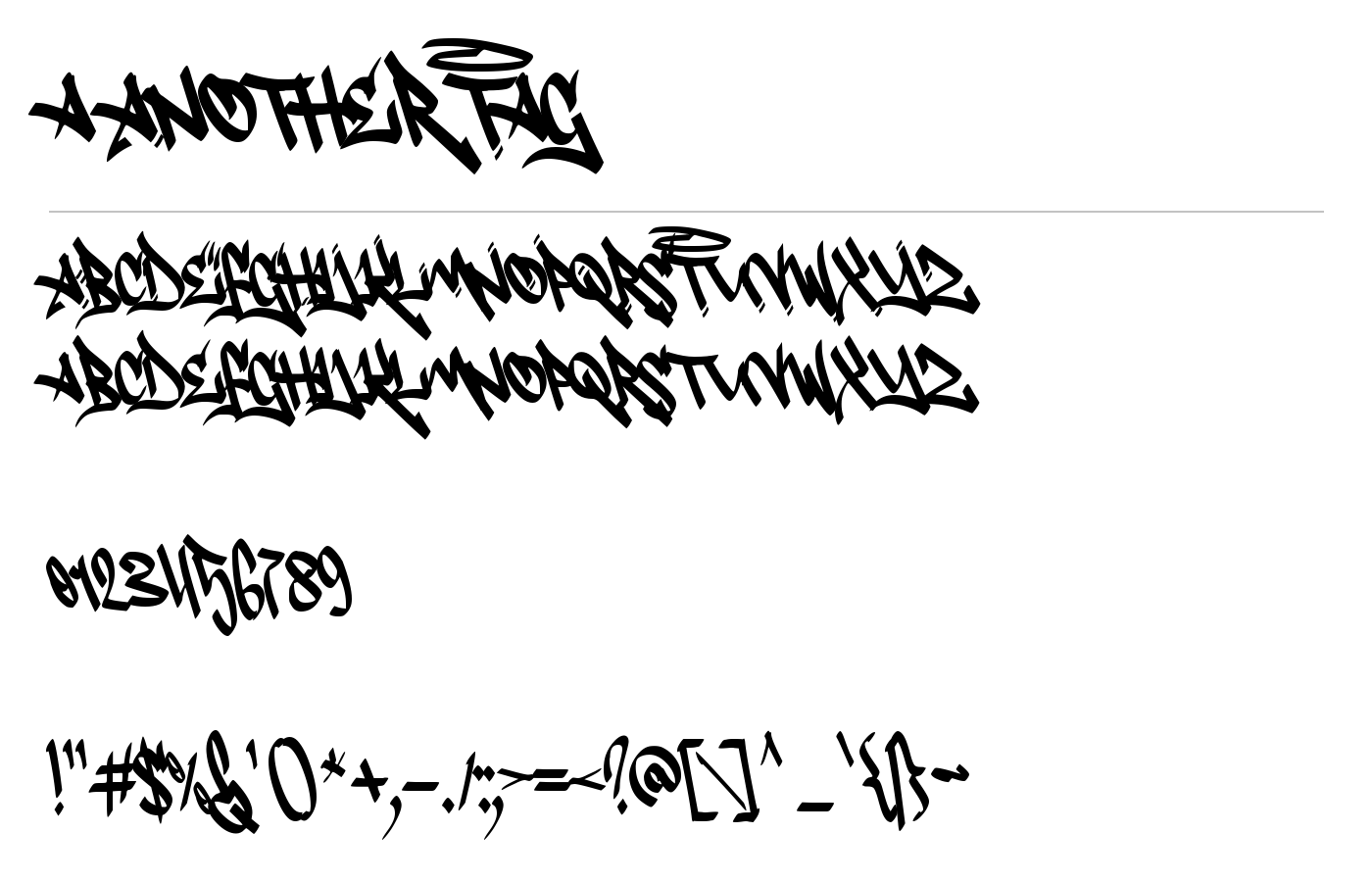
A Another Tag Font is a bold, expressive graffiti-style typeface characterized by its sharp, angular strokes and dynamic, hand-drawn feel. This font exudes urban energy and raw creativity, making it perfect for street art-inspired designs, youth culture branding, and edgy editorial projects that seek to convey rebellion and individuality. Its distinct, stylized letterforms work best in headlines, logos, and posters where a strong, attention-grabbing statement is needed.
a Another Tag Font
About a Another Tag Font